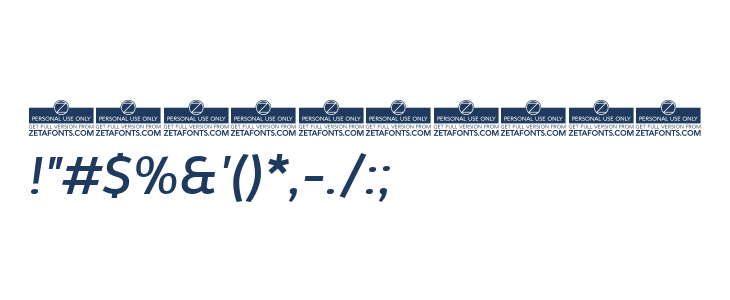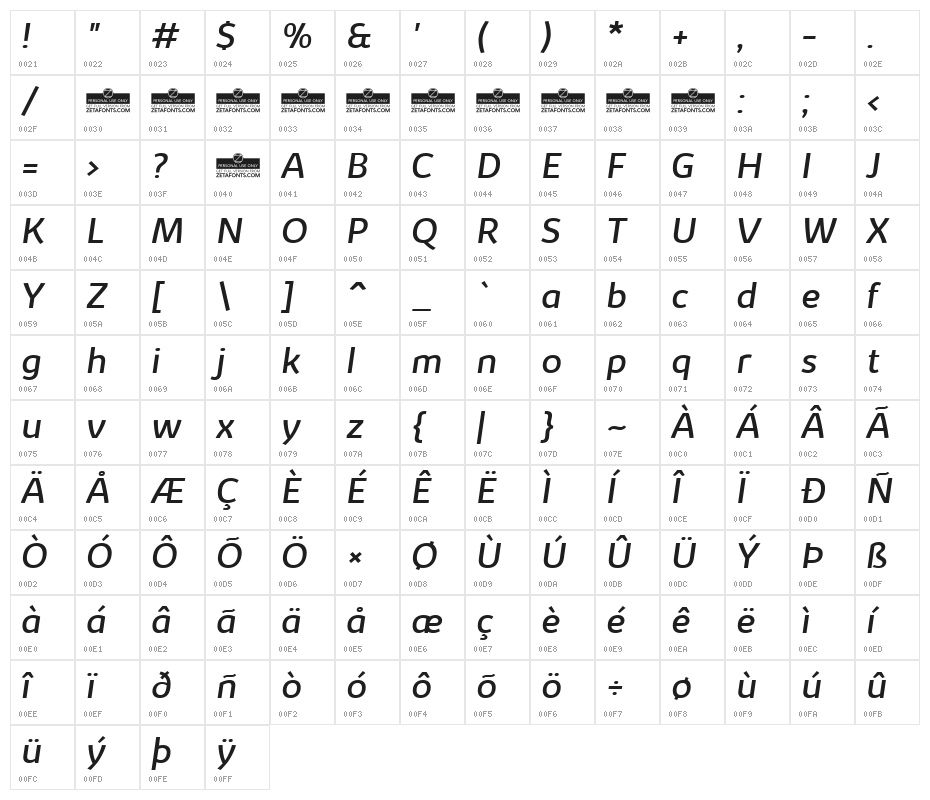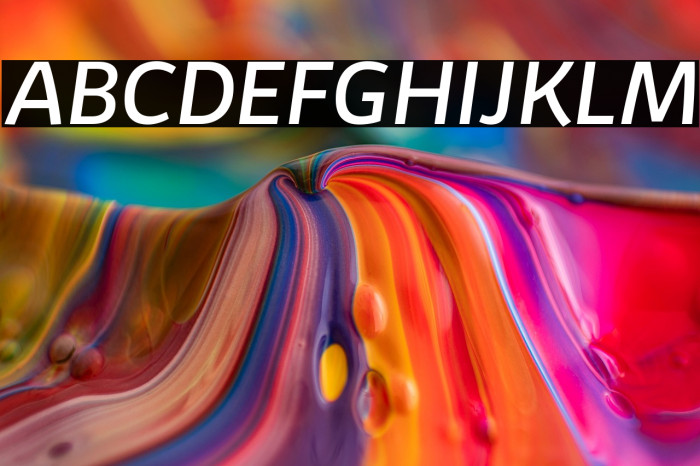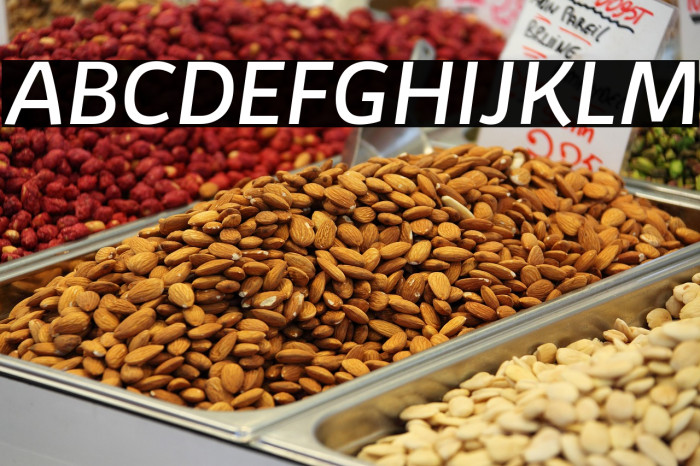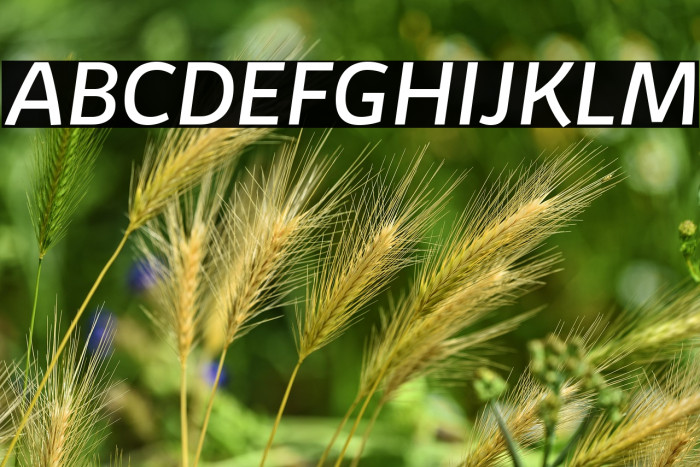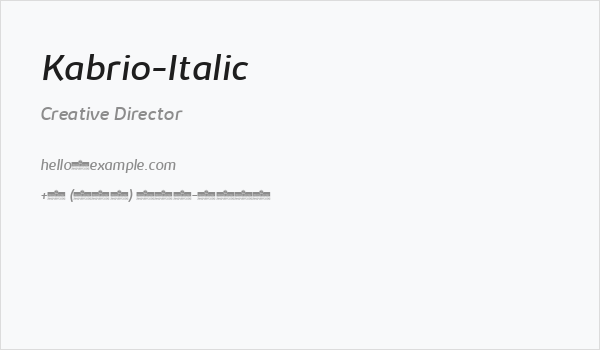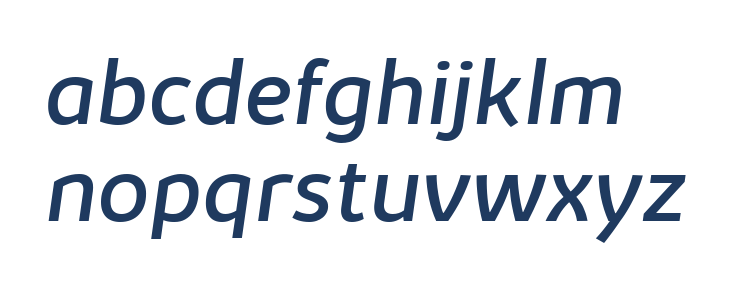
Kabrio-Italic Font
Kabrio-Italic Description
This font features a sleek and modern design with a slight italic slant, giving it a dynamic and forward-moving appearance. The characters are well-proportioned with clean lines and a uniform stroke width, making it highly legible. The uppercase and lowercase letters maintain a consistent style, while the numerals and special characters complement the overall aesthetic. The font's simplicity and elegance make it versatile for various design applications.
| Proposed Projects | Ideal for branding, advertising, and editorial design projects where a modern and professional look is desired. |